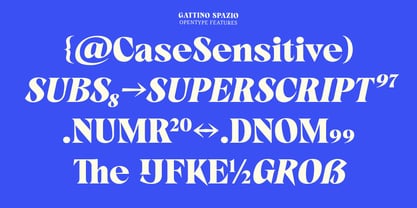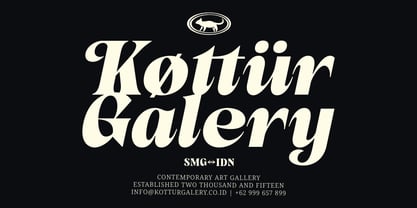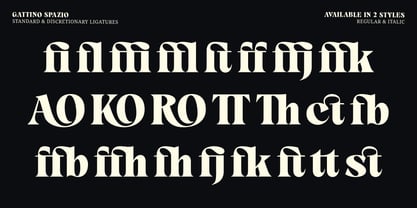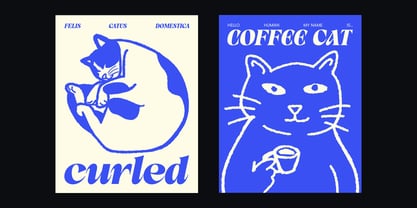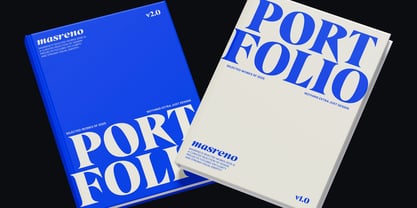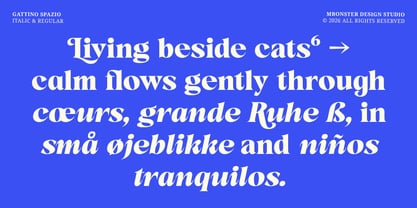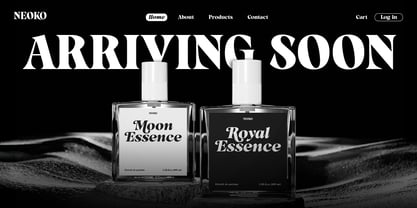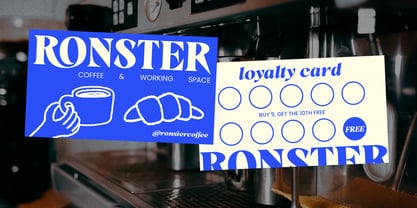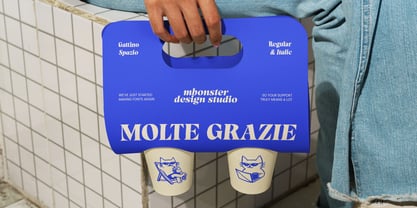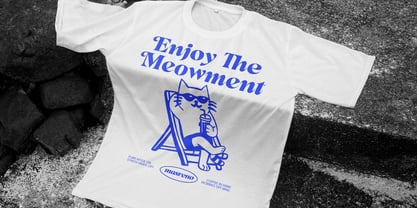
Gattino Spazio
by Mbonster
The Gattino Spazio Font Family was designed by Rizka Rony Setiawan and published by Mbonster. Gattino Spazio contains 2 styles and family package options. More about this family
Gattino Spazio is a contemporary display serif designed to capture attention and elevate visual identity with effortless sophistication. Blending high-fashion elegance with organic, character-driven expression, it draws from the classic Didone tradition with striking contrast, refined hairlines, and subtle humanist details that add warmth and movement. Every curve is carefully crafted to deliver both impact and versatility, making it ideal for premium, memorable design.
Perfect for luxury branding, jewelry and perfume packaging, boutique food and beverage design, editorial layouts, exhibition posters, fashion headlines, book covers, and modern merchandise—Gattino Spazio brings a polished, high-end feel to every application.